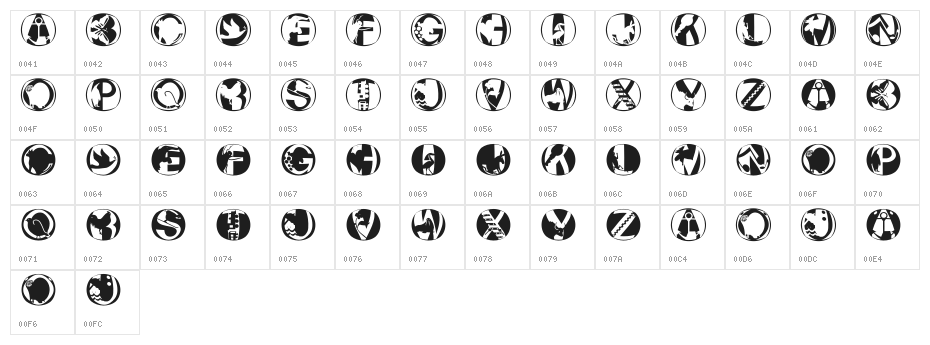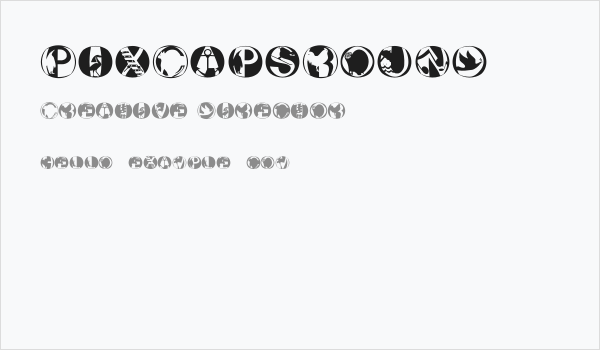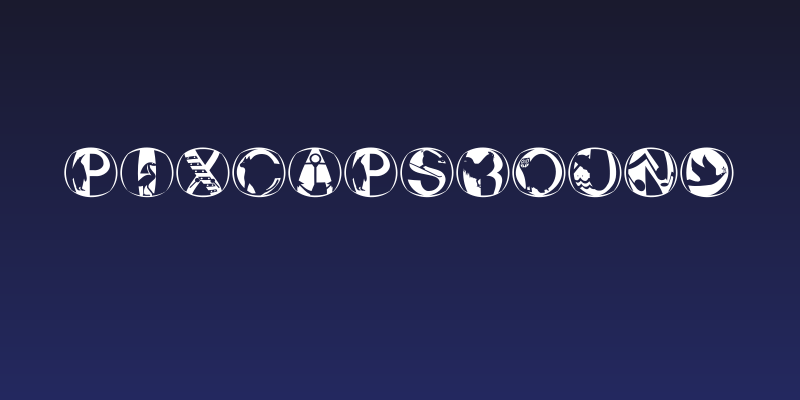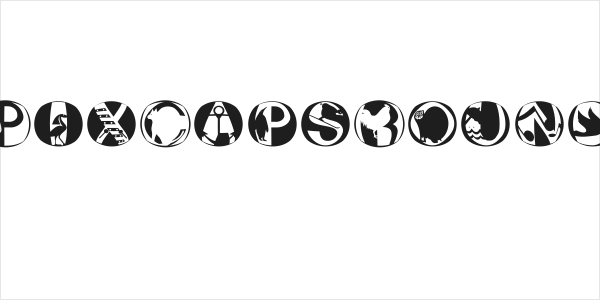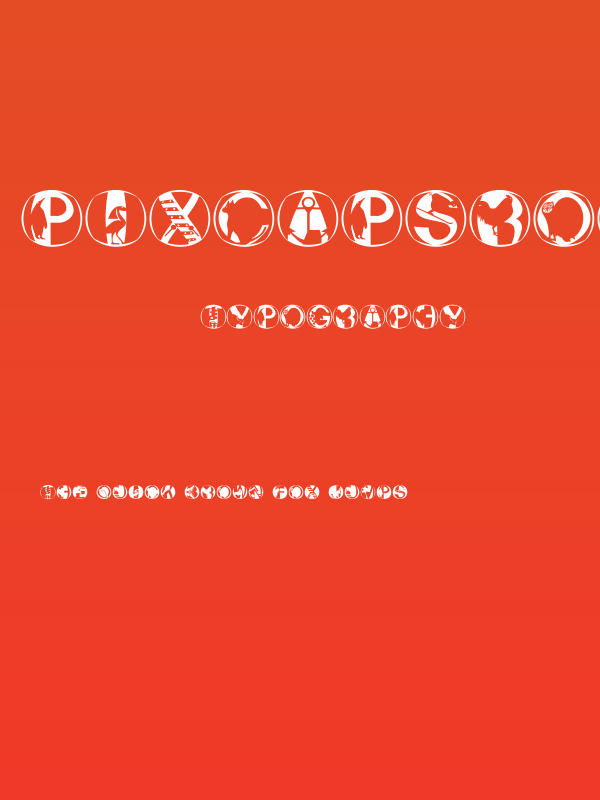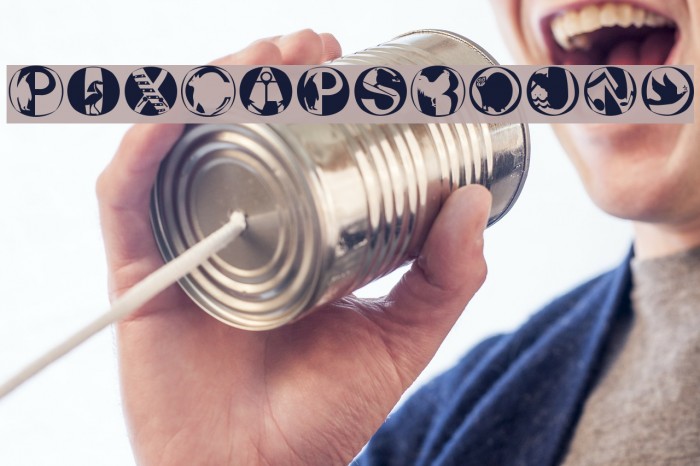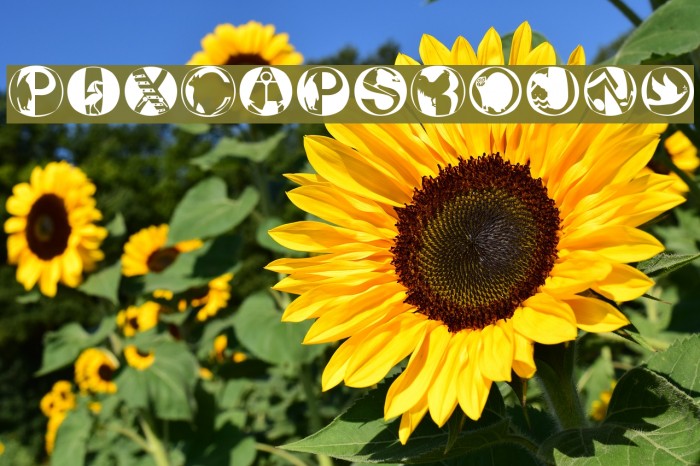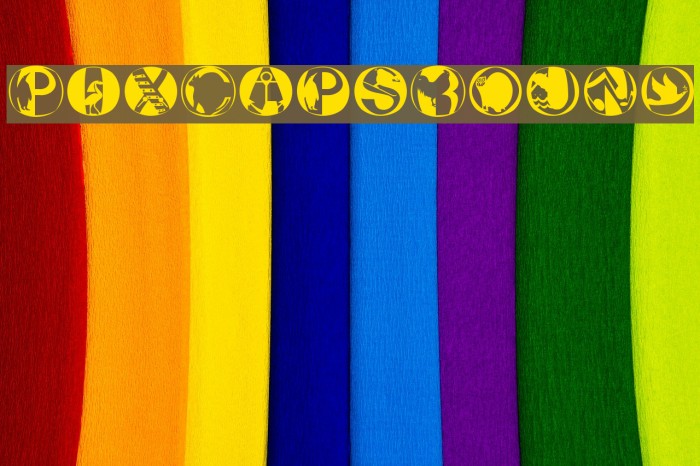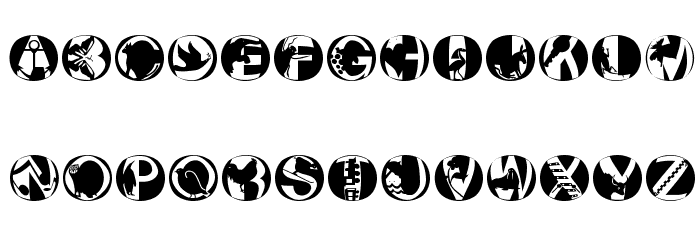
PixCapsRound Font
PixCapsRound Description
This font features a unique and artistic design where each character is encapsulated within a circular shape. The letters are creatively integrated with various graphic elements, giving each character a distinct and playful appearance. The combination of bold, contrasting black and white tones enhances the visibility and impact of the characters. The font's decorative nature makes it ideal for projects that require a touch of creativity and uniqueness. The overall style is modern and artistic, with a strong emphasis on visual appeal.
| Overall Style | Modern, Artistic |
| Use Case | Logos, Posters, Branding |
| Proposed Projects | Ideal for creative projects such as logos, posters, and branding materials that require a distinctive and artistic flair. |